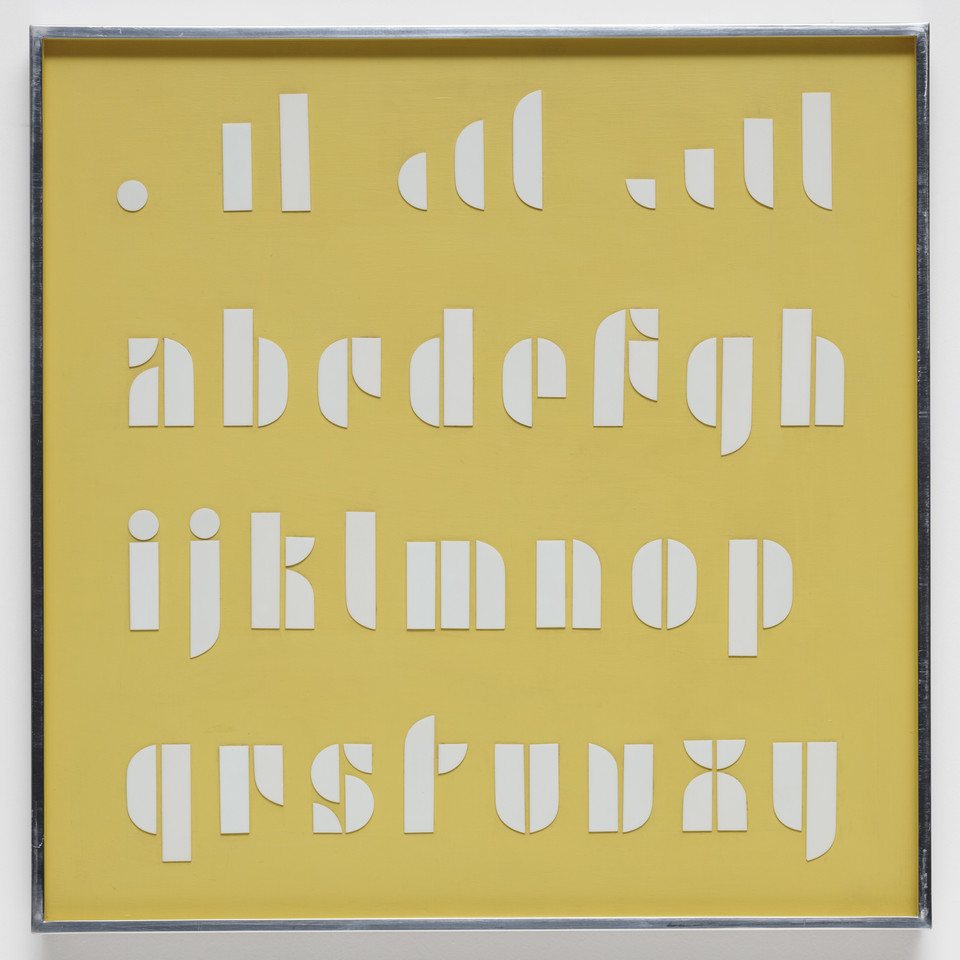
Kombinations-Schrift, 1926–1928
Albers (1886-1976) was both a student and a teacher at the Bauhaus. Principally an abstract painter, Albers also was a designer and typographer.
His Kombinationschrift alphabet was a modular lettering system based upon 10 basic shapes derived from a circle and a square. it was designed to be efficient—both easy to learn and inexpensive to produce.
The result was not a legible as [for example] Bayer’s [Bauhaus typeface from 1925] but the idea of modularity was in line with the school philosophy of creating streamlined objects for mass production.
The radical constructivist designs we now immediately connect with Bauhaus were only carried out in drafts, drawings and lettering, not as commercial typefaces. → Designhistory.org | Bauhaus Type